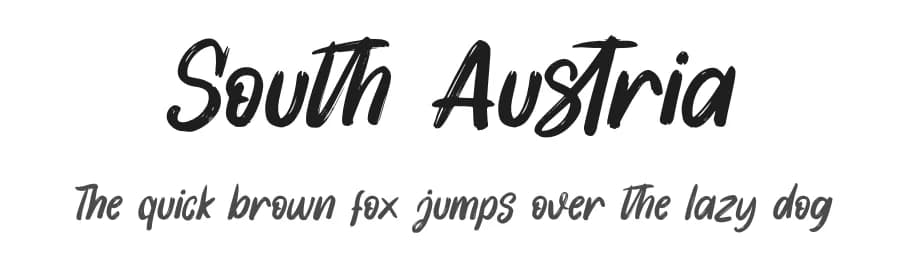
About South Austria Font
South Austria is a script & handwritten font designed by Annisa Afni. It includes 96 glyphs, a regular weight, OTF (CFF) format, and 104 languages. South Austria is free to download; check the license details on this page before commercial use. Script & handwritten fonts like South Austria work best for wedding invitations, greeting cards, signatures, and elegant branding.
South Austria Font is a script font that shines as a display or heading face. Pair it with a clean sans-serif or serif font for body text β the contrast creates a clear hierarchy while the two styles stay balanced and easy to read.
South Austria Font
by Annisa Afni